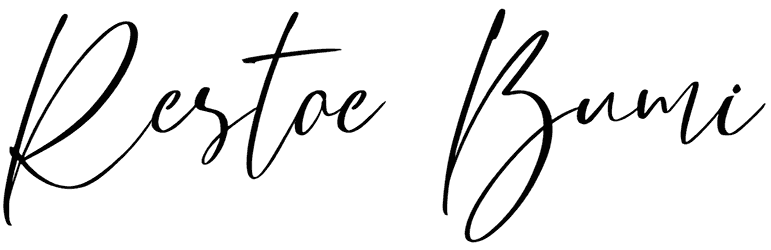
Restoe Bumi Font
If you are looking for a unique handwritten script font that you can add to your luxury designs, then your certainly going to enjoy Restoe Bumi! It’s a very classy and delicate natural hand-written font, it offers elegant characters that are stunning and deliver a creative feel.
Restoe Bumi is an unreadable font that will form one calligraphic style typography that provokes ideas of femininity! Give it a try, and you can include it in certificates, weddings, branding, and so on.